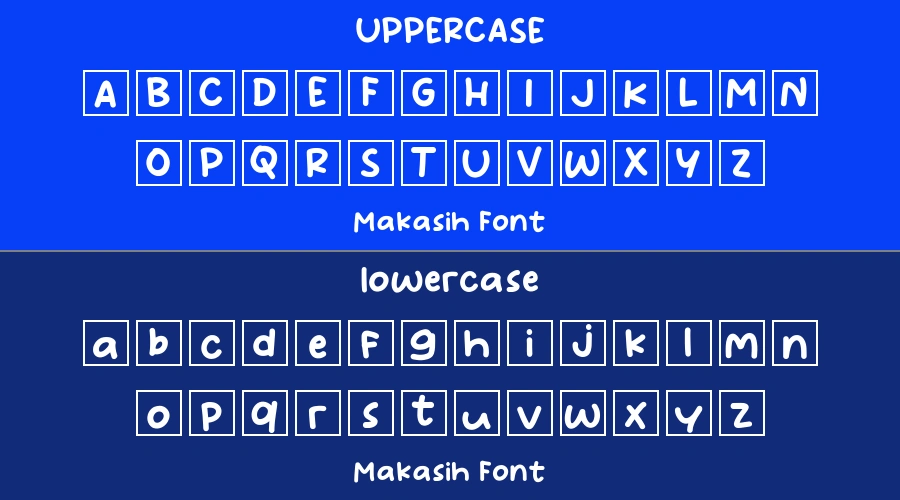
About Makasih Font
Designed with precision, Makasih Font merges monoline strokes with durability in every character. This versatility makes it particularly effective for brand identities, where durability and brand alignment directly impact communication quality. Each letterform demonstrates meticulous craftsmanship.
Technical excellence shines through elements like fluid connections and discretionary ligatures, enhancing typographic versatility. In event graphics settings, Makasih Font proves its worth through superior data presentation. The thoughtful execution of stroke modulation and technical innovation ensures professional results.